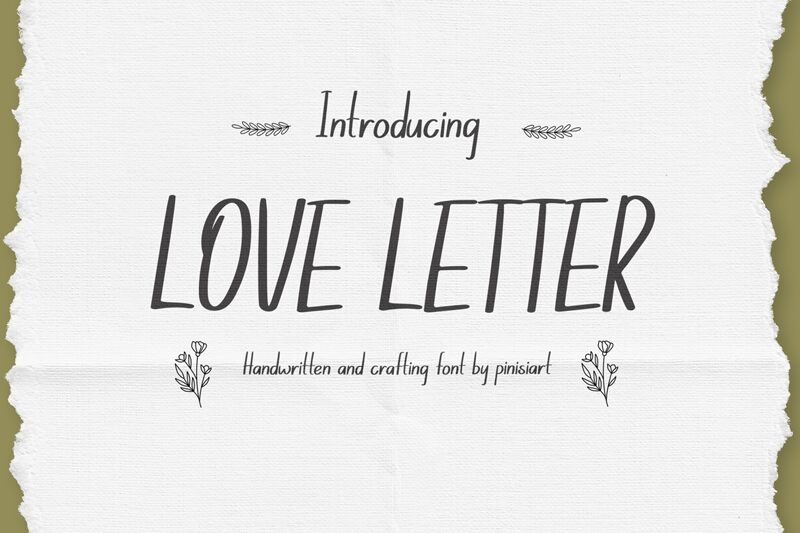
Love Letter font by Pinisiart is a free handwritten font bursting with charm and charisma. With its casually styled uneven letters, organic elements, and relaxed letter structure, this font offers a distinct personalized style for its users. It builds an inviting vibe through its friendly letters for both personal and commercial projects alike.
Users with a wide range of artistic directions will easily implement this font in social media platforms and posts, landing pages, promotional ads and banners, branding and stationery projects, and others. The modern handwritten font can be also used for typography art, book/magazine covers, newspapers, and online publications. Customize and decorate websites and apps with the approachable letters available and create welcoming menus for restaurants with entertaining logs included.